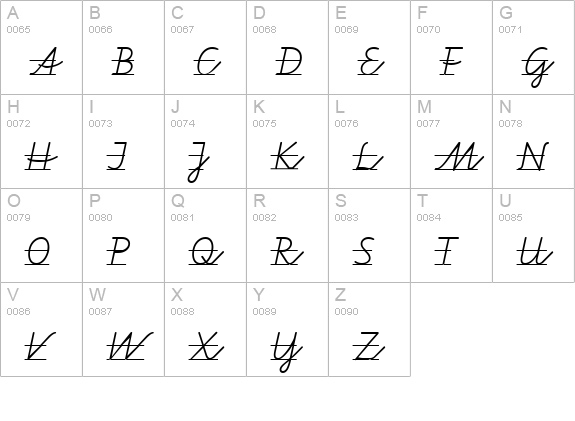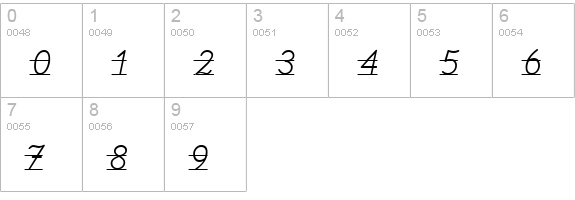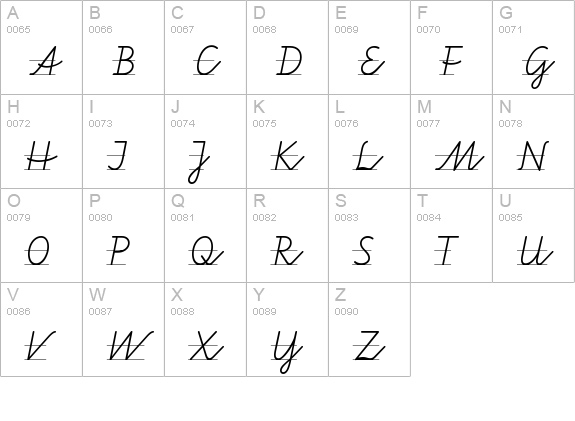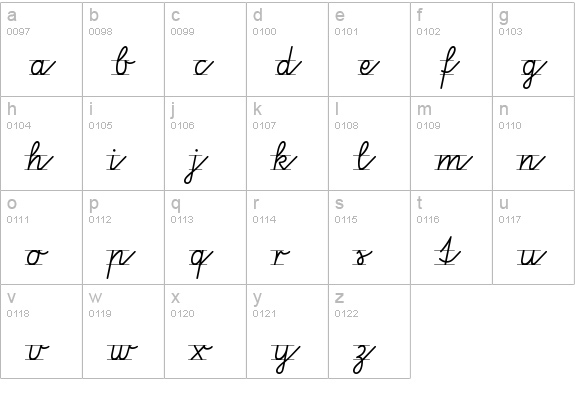
VA Pe 2 Font Details
VA Pe 2 is a strikingly elegant font that effortlessly captures attention with its timeless charm. This versatile font is perfect for a wide range of design projects, whether it be creating eye-catching logos, designing captivating website headers, or crafting visually appealing invitations. Its clean and sophisticated letterforms exude a sense of professionalism and refinement, making it an ideal choice for business materials and branding. What makes VA Pe 2 even more remarkable is that it is freely available to download at FontsMarket.com. This means that you can easily access this exquisite font without worrying about any financial constraints. With VA Pe 2, you can enhance your designs and bring them to life, all while staying true to your budget. The creators of VA Pe 2 have meticulously crafted each character to perfection, ensuring that every detail is meticulously executed. The result is a font that exudes elegance and class, giving your designs a touch of sophistication that will captivate your audience. Whether you are a seasoned professional or a design enthusiast, VA Pe 2 offers endless possibilities for your creative ventures. Its versatility allows it to adapt seamlessly to different design styles and applications, making it a valuable addition to any designer's toolkit. So why wait? Download VA Pe 2 today, for free, at FontsMarket.com and unlock the potential to create stunning designs that leave a lasting impression. With VA Pe 2, you can elevate your projects to new heights and make your mark in the design world.